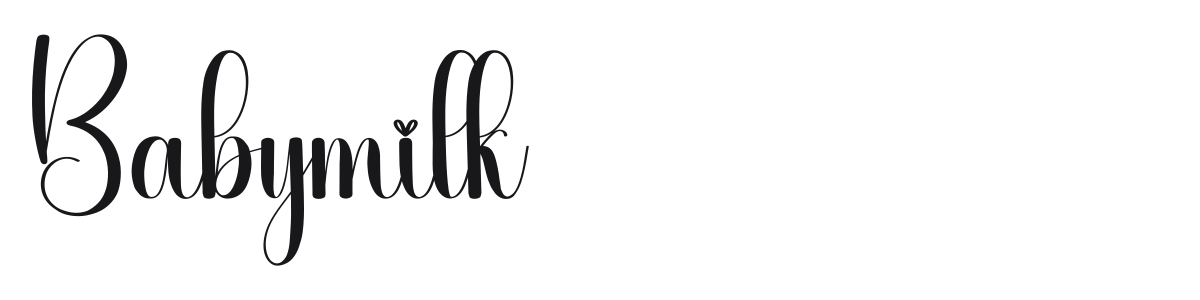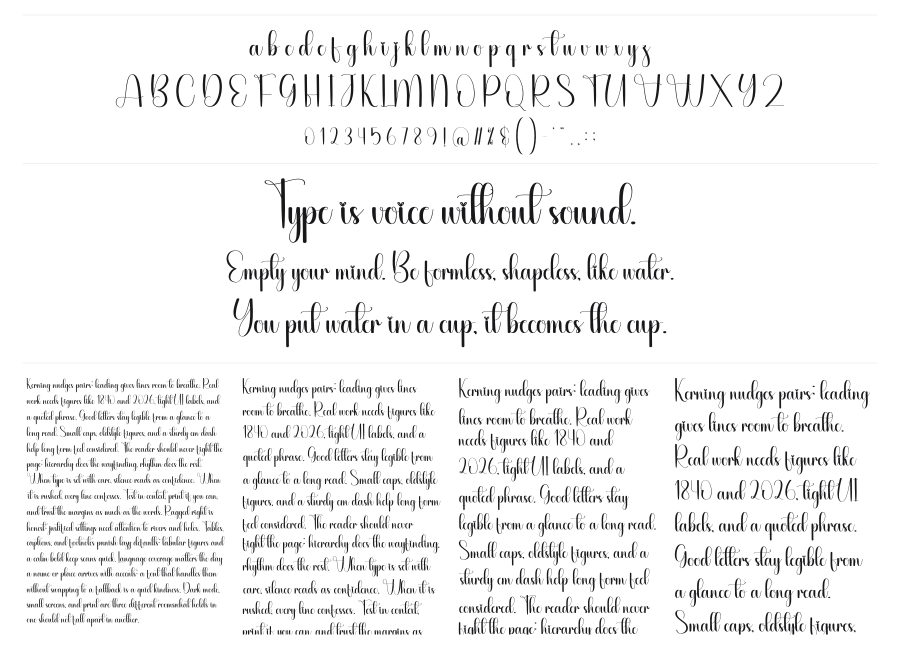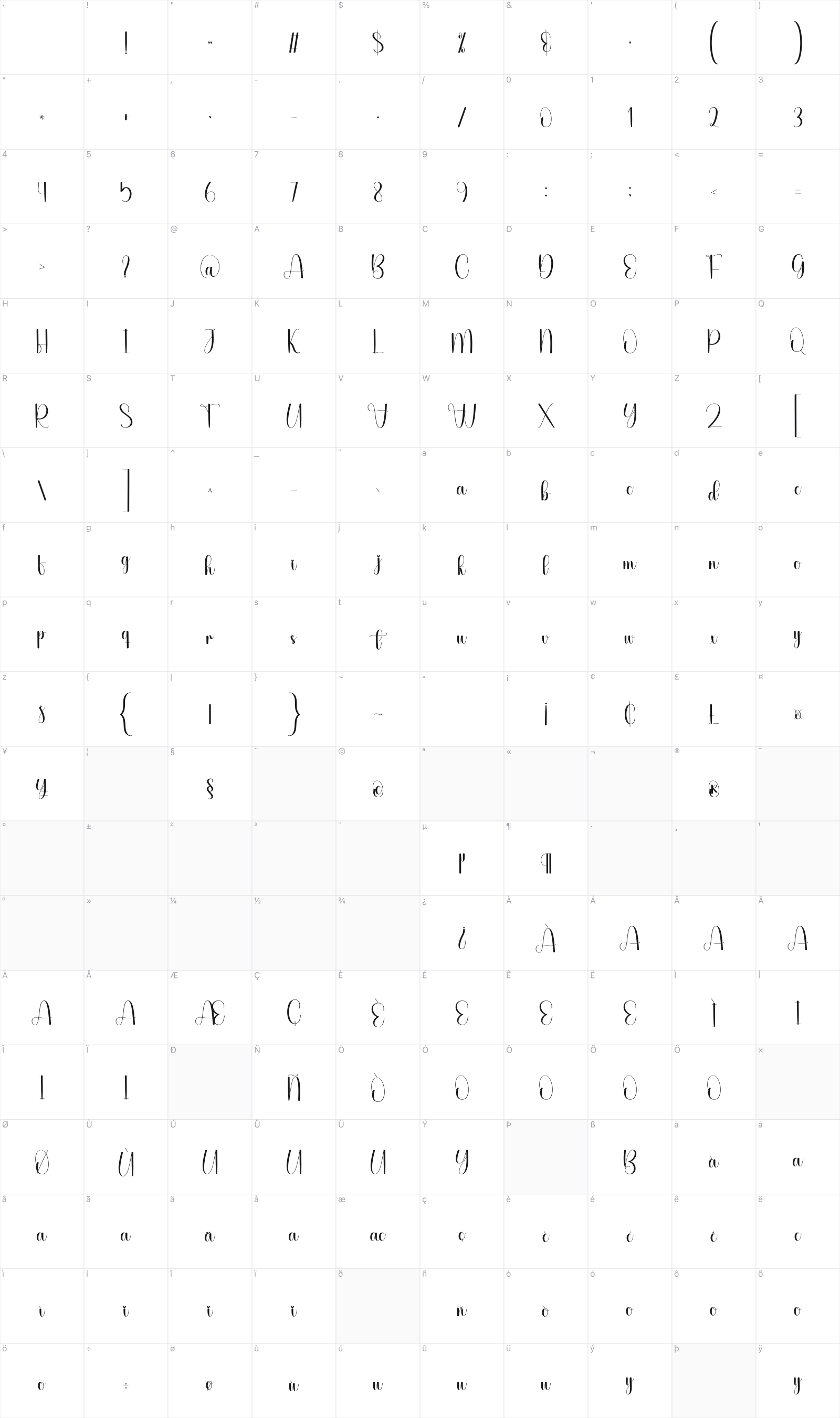
Babymilk
Babymilk is a flowing calligraphic script with rich stroke contrast and swirling flourishes on ascenders and descenders. The connected letters move with a natural, pen-drawn rhythm that gives it genuine calligraphic warmth rather than a mechanical feel. It sits comfortably on wedding invitations, packaging, and any context where handwritten elegance is the point.